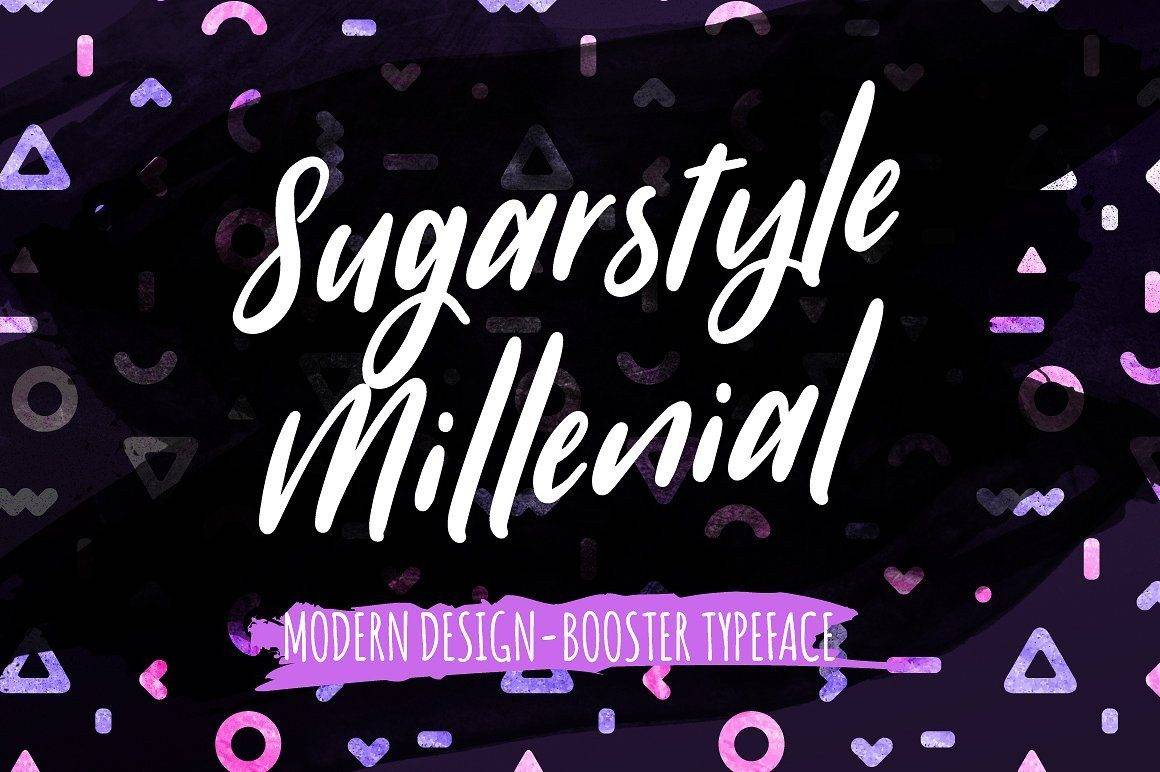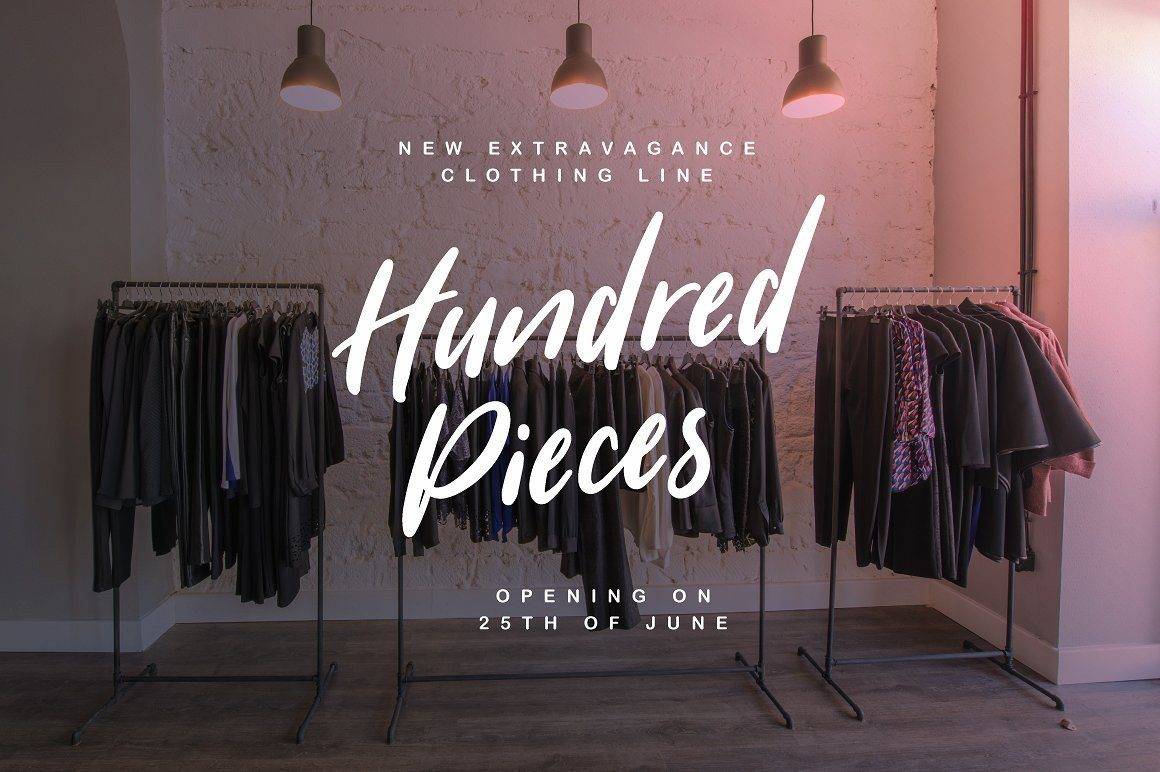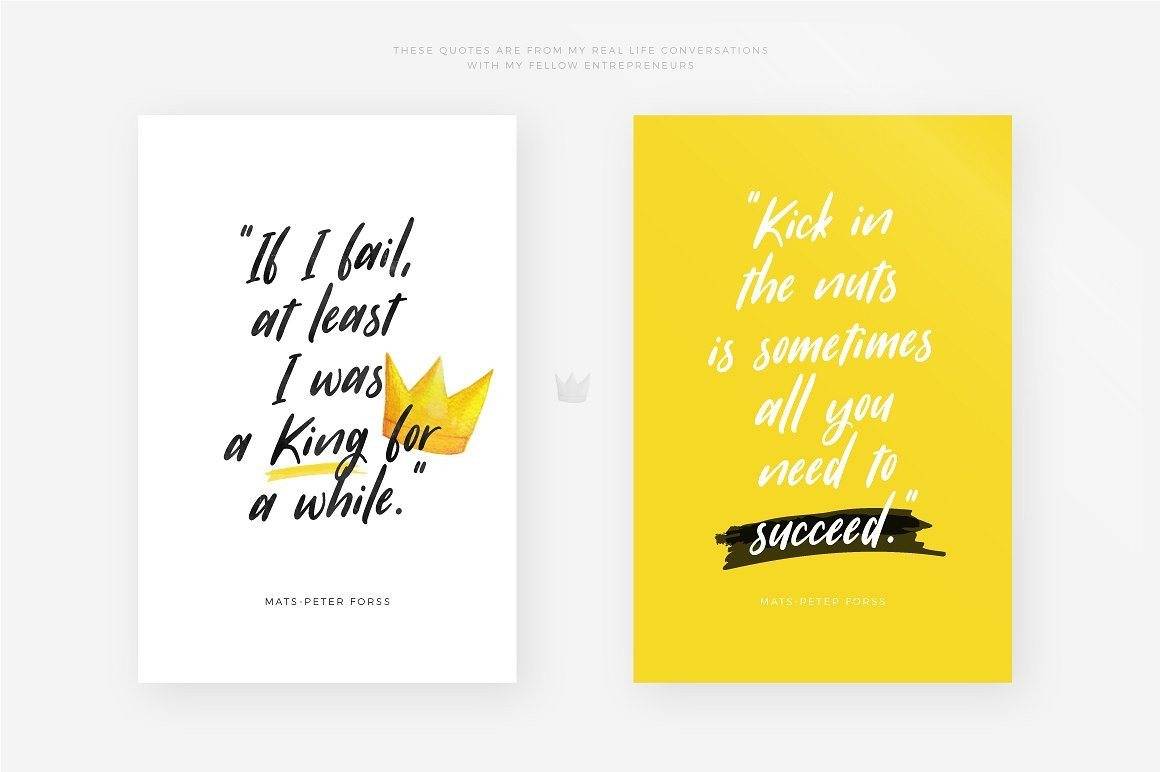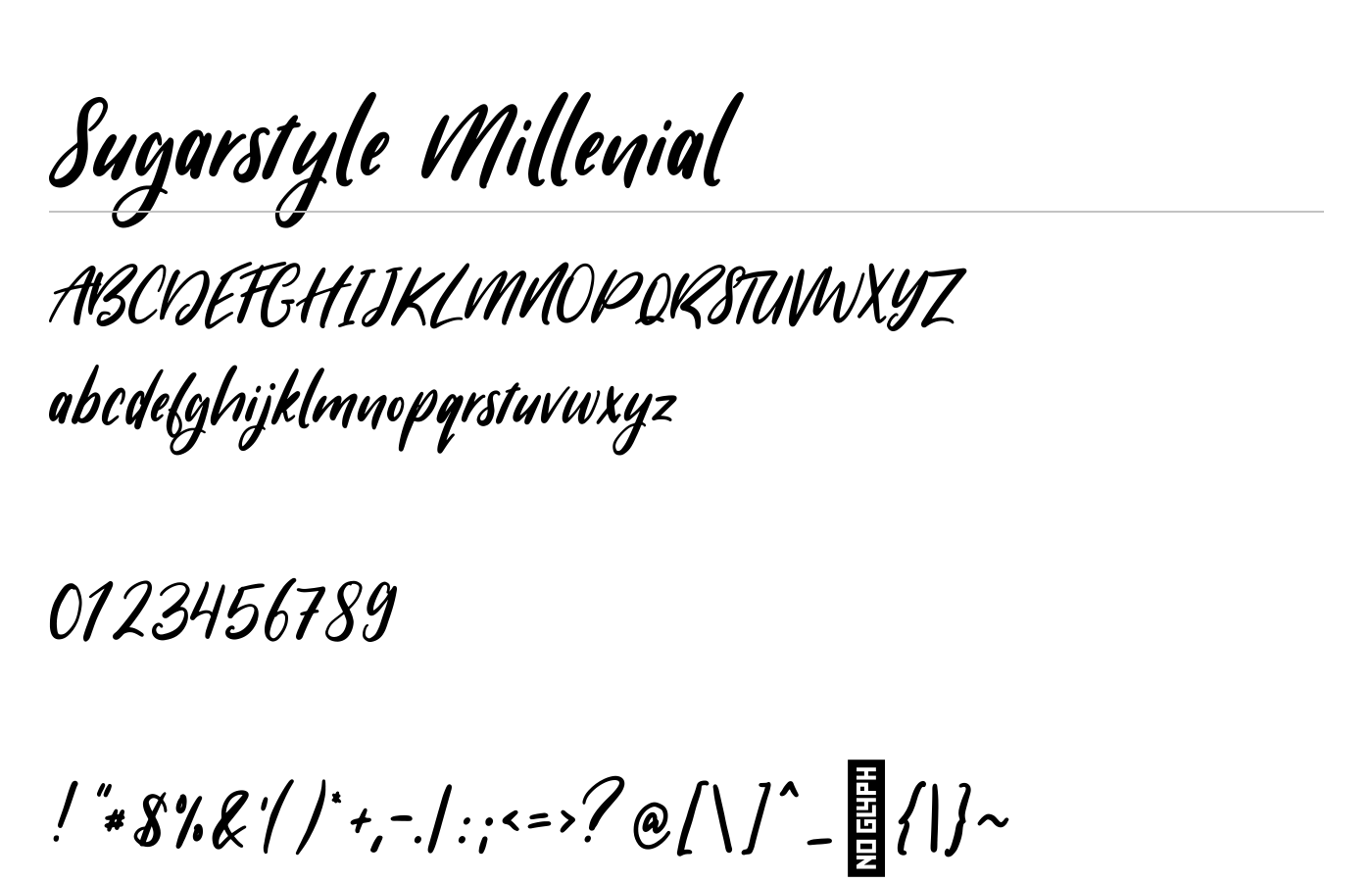
Sugarstyle Millenial is a lively script font with a casual, handwritten feel, featuring smooth, flowing strokes and a moderate contrast that gives it a friendly yet refined look. Its tall x-height and slightly condensed letters make it legible and airy, perfect for adding a personal, modern touch to branding, invites, or social media graphics. This font works well in designs that seek an approachable, stylish vibe with a youthful, dynamic personality.
Sugarstyle Millenial Font
About Sugarstyle Millenial Font
| Font family | Sugarstyle Millenial Font |
| Designer | Mats-Peter Forss |